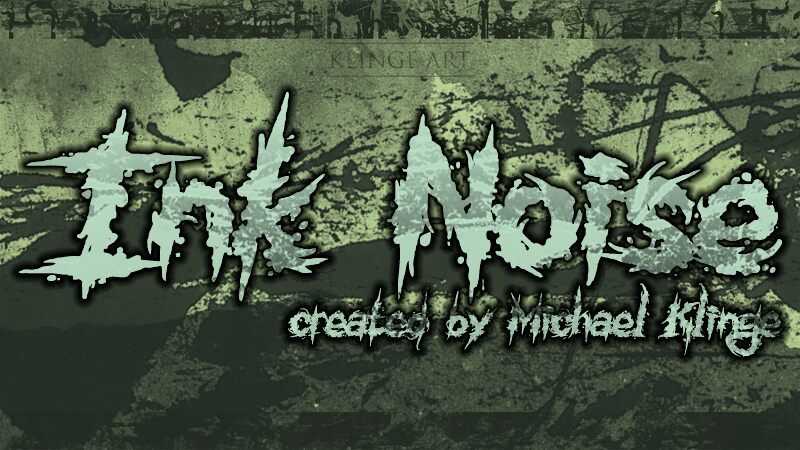
Ink Noise
It's been about 4 years since I uploaded my first font... Thanks to everyone who found that useful and supported me! This time I created a clearer and more brutal font, plus a few "additional" letters, so I'm sure you're gonna like it more than the other ones.